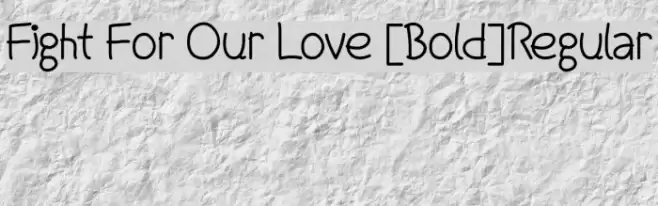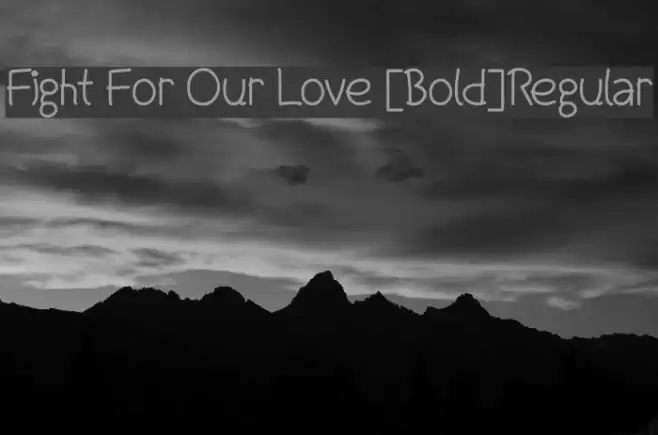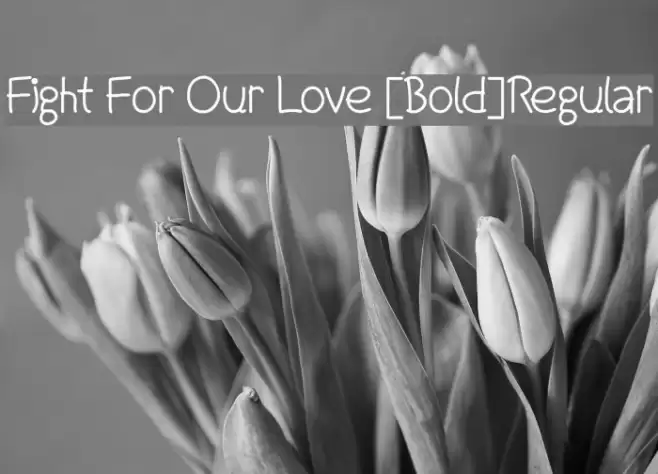
Fight For Our Love [Bold]Regular Font
Fight For Our Love [Bold]Regular Description
This font features a playful and casual handwritten style, characterized by its rounded and slightly irregular letterforms. The uppercase and lowercase letters maintain a consistent flow, giving a sense of informality and friendliness. The numerals and special characters are designed to match the overall whimsical aesthetic, making it suitable for creative and informal projects. The strokes are uniform in thickness, contributing to a clean and approachable appearance.
A playful, handwritten font with rounded, casual letterforms from Uncategorized fonts.
- Proposed Projects: Ideal for children's books, greeting cards, casual branding, and playful social media graphics.
- Overall Style: Casual, Playful
- Use Case: Headlines, Informal text, Creative projects